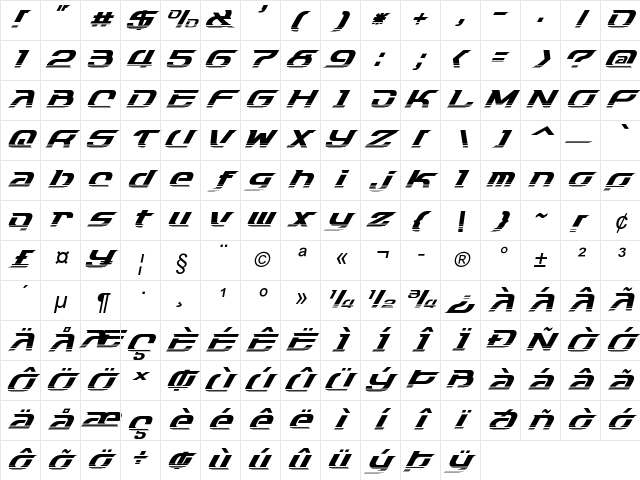
Complete Midnight Trek Italic glyph index. Displaying only characters natively supported by Midnight Trek Italic font.
Midnight Trek is a composed and adaptable typeface that performs quietly and consistently across a wide range of design contexts. The slanted form adds forward momentum and visual energy.